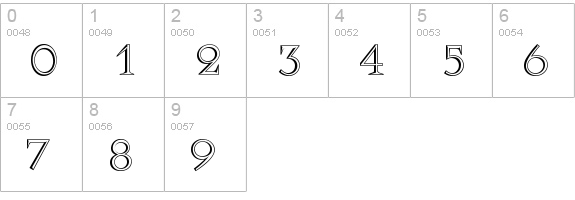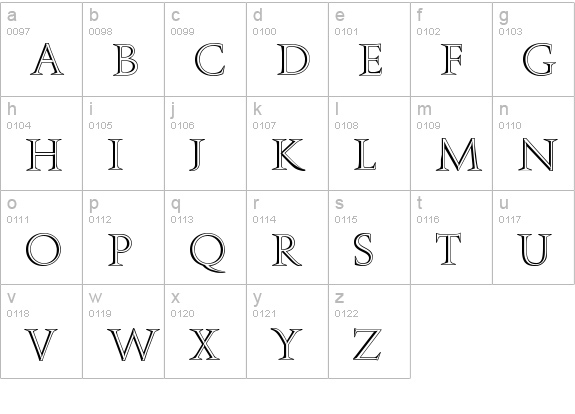
A850-Deco-Regular Font Details
A850-Deco-Regular is the standard, neutral variant in the A850 typeface family \xE2\x80\x94 well suited to general body text, paragraphs, and standard typographic work.
A850-Deco-Regular is a stylish and versatile font that combines classic art deco elements with a modern twist. Its clean lines and geometric shapes give it a sophisticated yet playful feel, making it perfect for a wide range of design projects. This font exudes elegance and charm, making it ideal for branding, packaging, invitations, and more. The best part? A850-Deco-Regular is available for free download at FontsMarket.com. This means you can easily access this beautiful font and incorporate it into your creative work without any cost. Don't miss out on the opportunity to enhance your designs with this eye-catching and unique typeface. Download A850-Deco-Regular today and elevate your projects with a touch of timeless style.